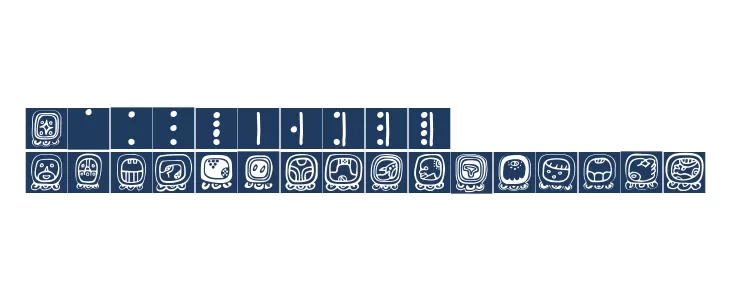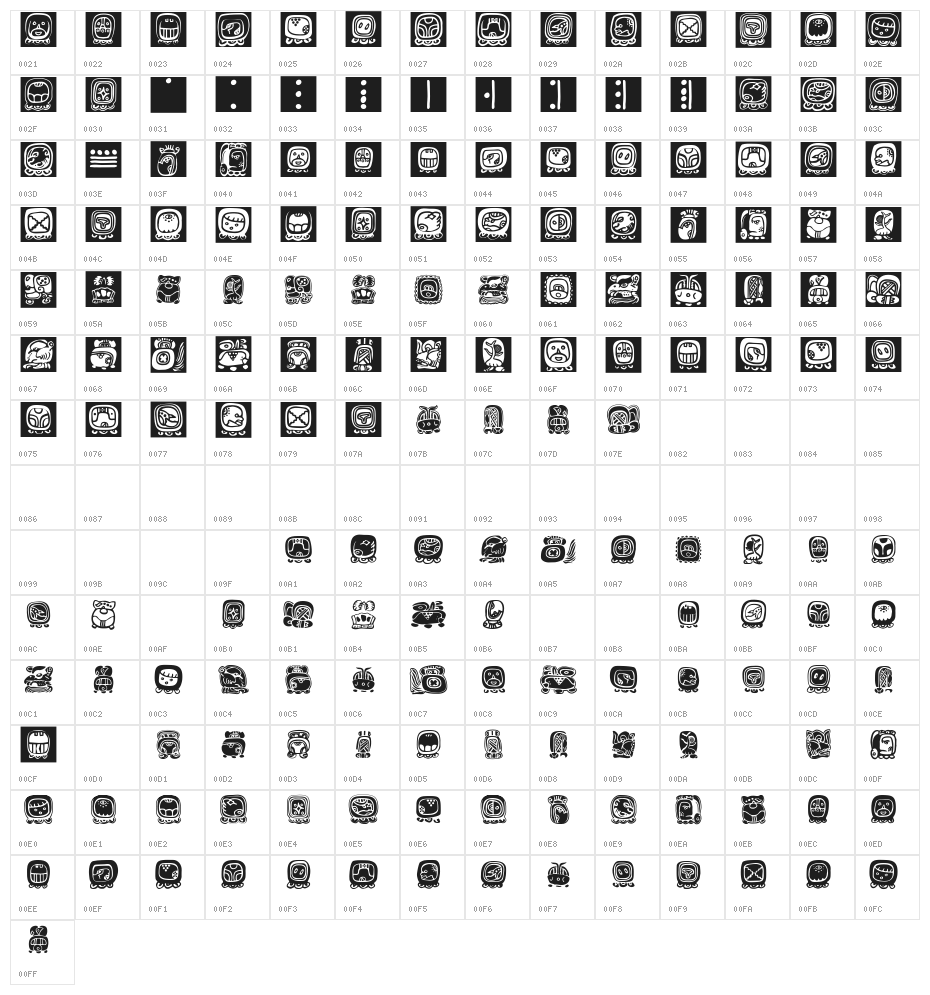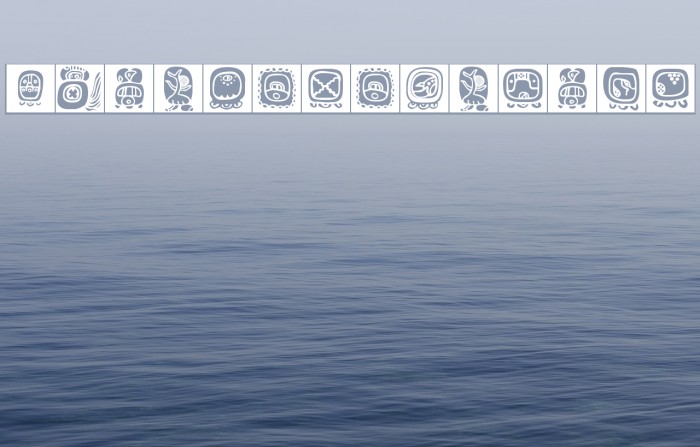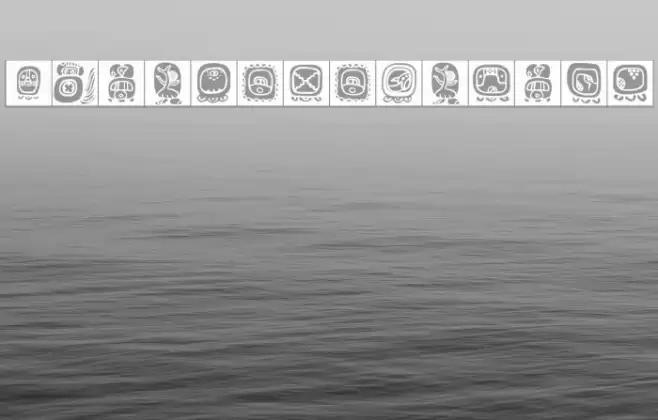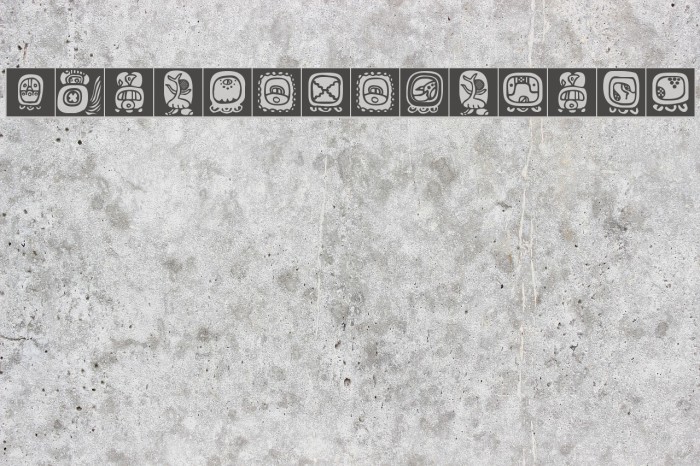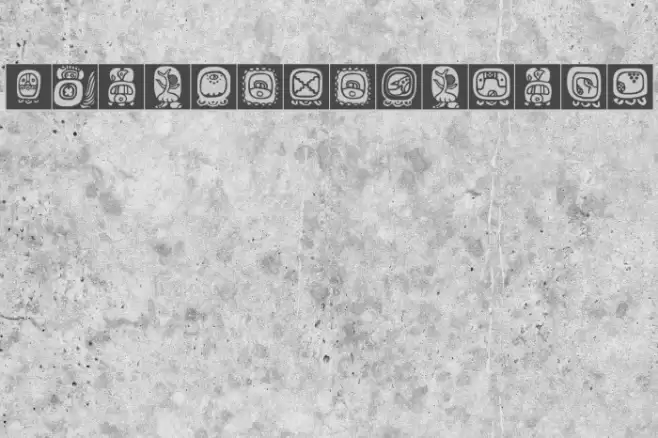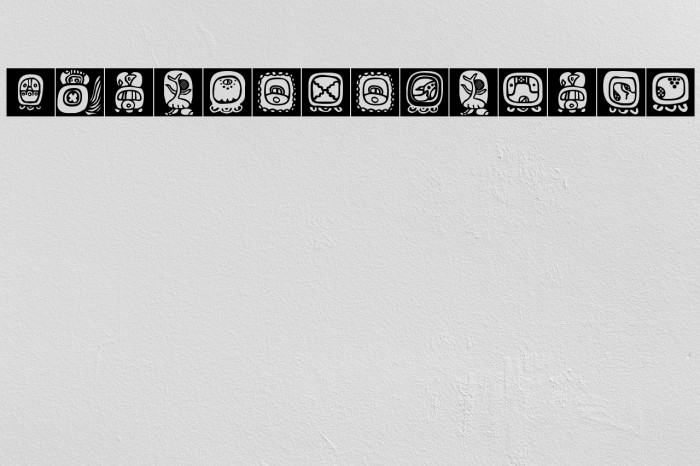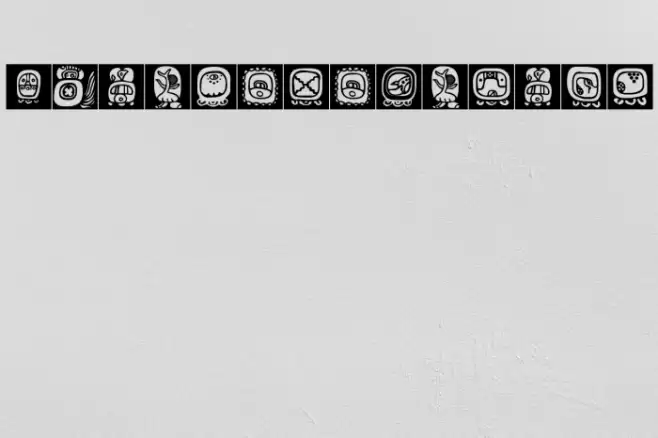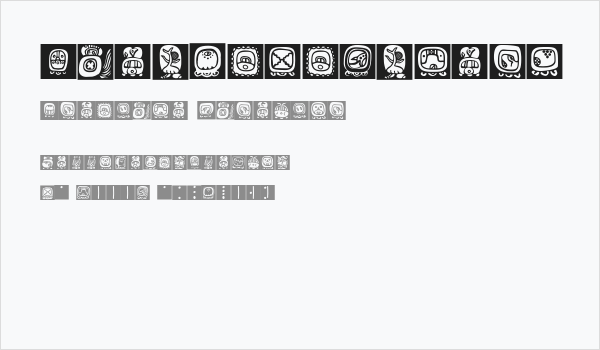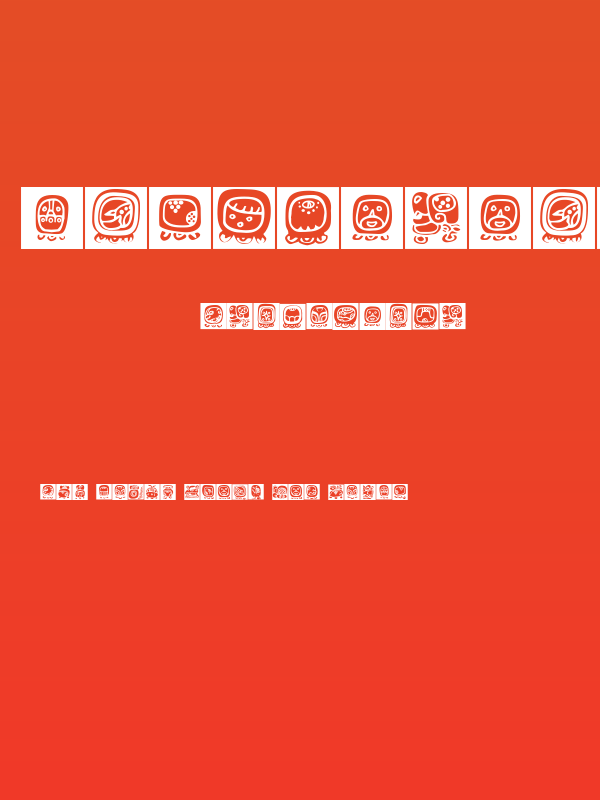
BienMayaInvers Font
BienMayaInvers Description
This font is a unique and artistic representation inspired by ancient Mayan glyphs. Each character is intricately designed, resembling traditional Mayan symbols and artwork. The characters are enclosed in square frames, giving them a distinct and uniform appearance. The design is highly decorative, with each glyph featuring detailed patterns and motifs that reflect the rich cultural heritage of the Mayan civilization. The font is primarily monochromatic, using a stark contrast between black and white to highlight the intricate details of each glyph. This artistic style makes it suitable for projects that aim to evoke a sense of history, culture, and artistry.
| Use Case | Logos, Artistic displays, Cultural projects |
| Proposed Projects | Ideal for cultural projects, historical presentations, artistic displays, and themed event materials. |